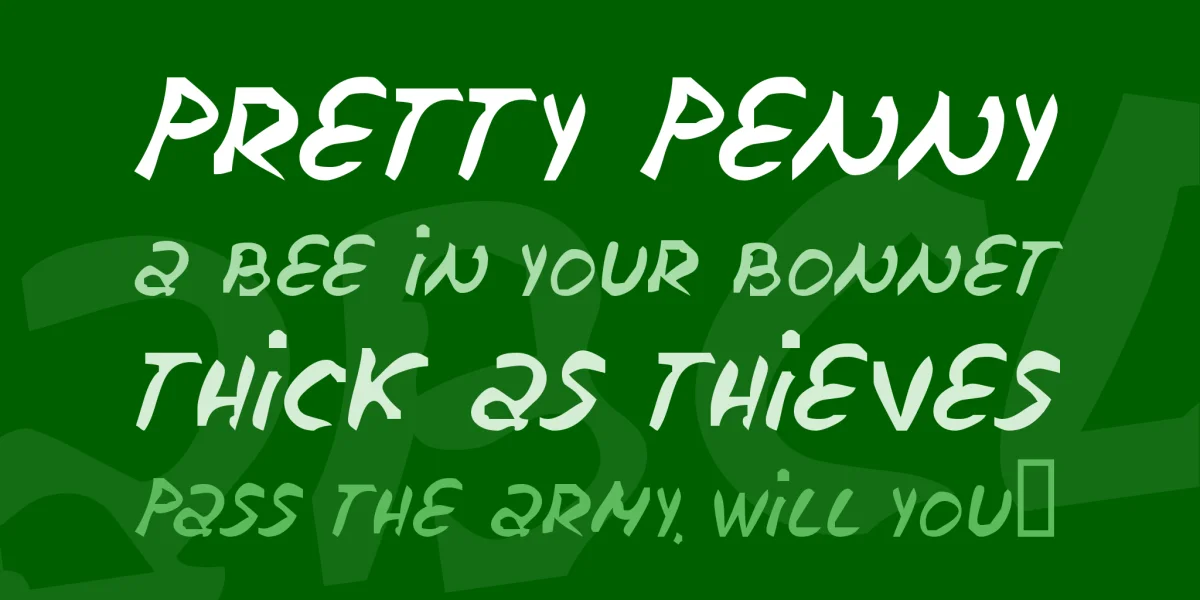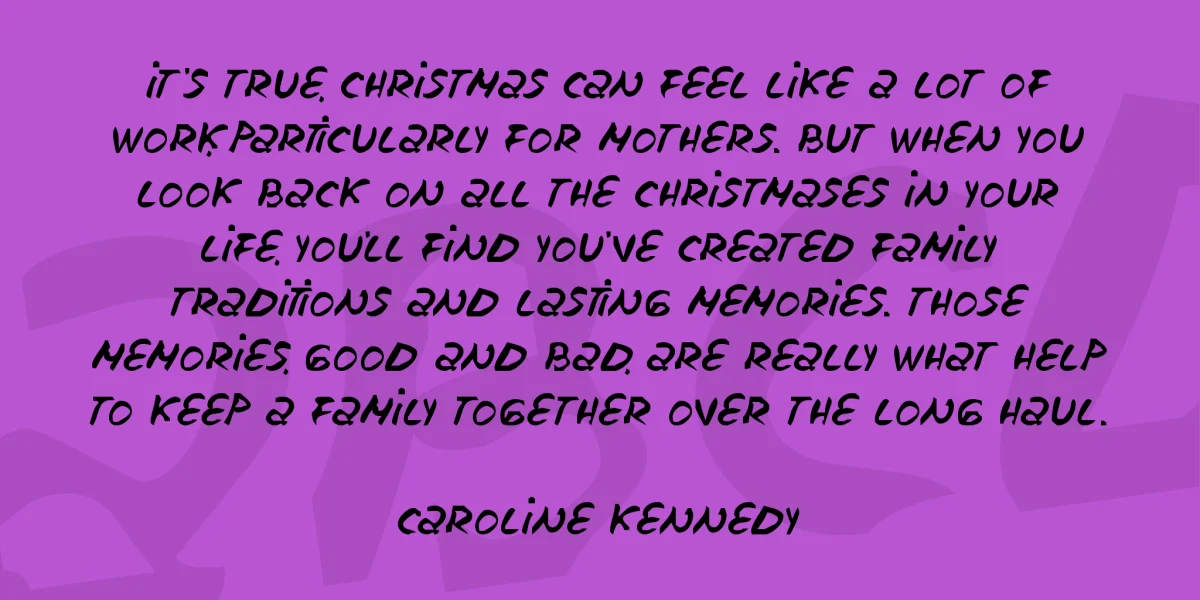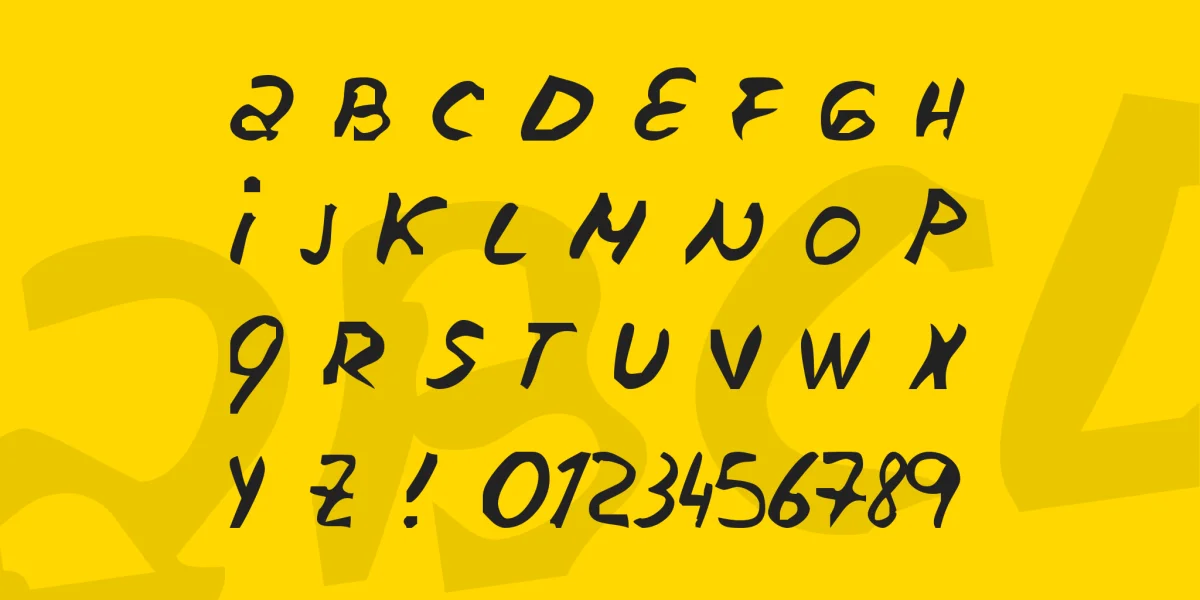
«escudillers» is: 1. in the BETA stage; 2. based on a flyer announcing the sale of a flat in my neighborhood; 3. incomplete, having only capital letter, number, and some punctuation glyphs; 4. OK for CD package designs ... ; 5. as per usual, free for non-commercial use, so contact me for a fuller version if you're interested in making something with it ... | peace